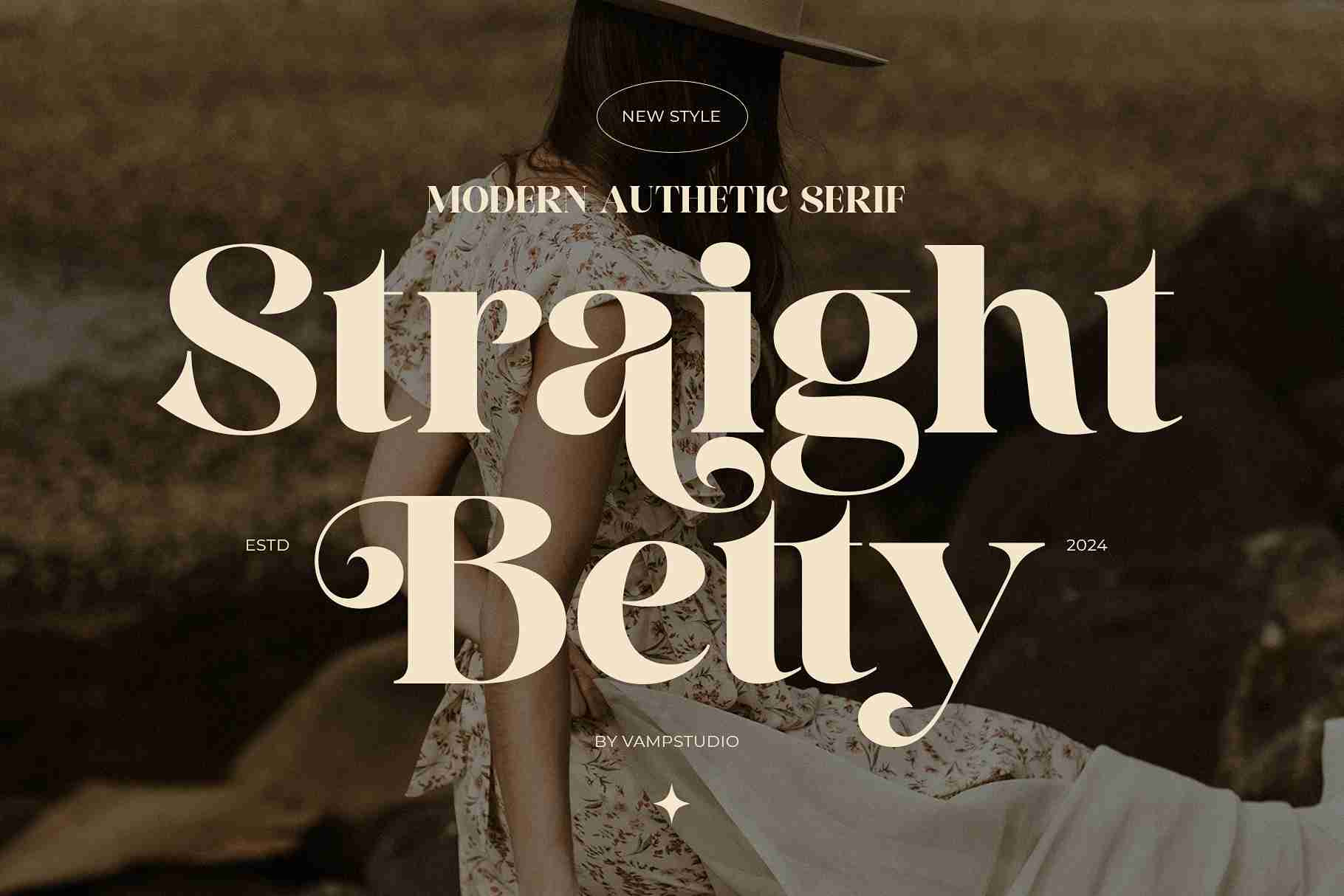
Straight Betty Modern Serif Font
Straight Betty is a modern elegant serif typeface. This font looks very simple, clean, and elegant. Specially designed by skilled hands makes this font is the perfect fit for all your big projects.
Straight Betty is perfect for branding projects, logo, wedding designs, social media posts, advertisements, product packaging, product designs, label, photography, watermark, invitation, stationery and any projects that need luxury and stylish taste.